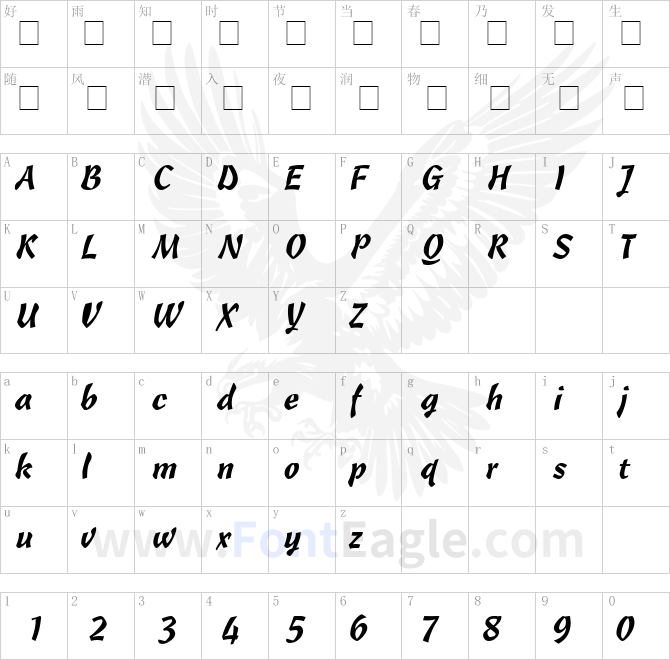
Cassia is a great font, widely used in graphic design, single-page menu design, poster design and other fields, and is deeply loved by designers.Cassia download.